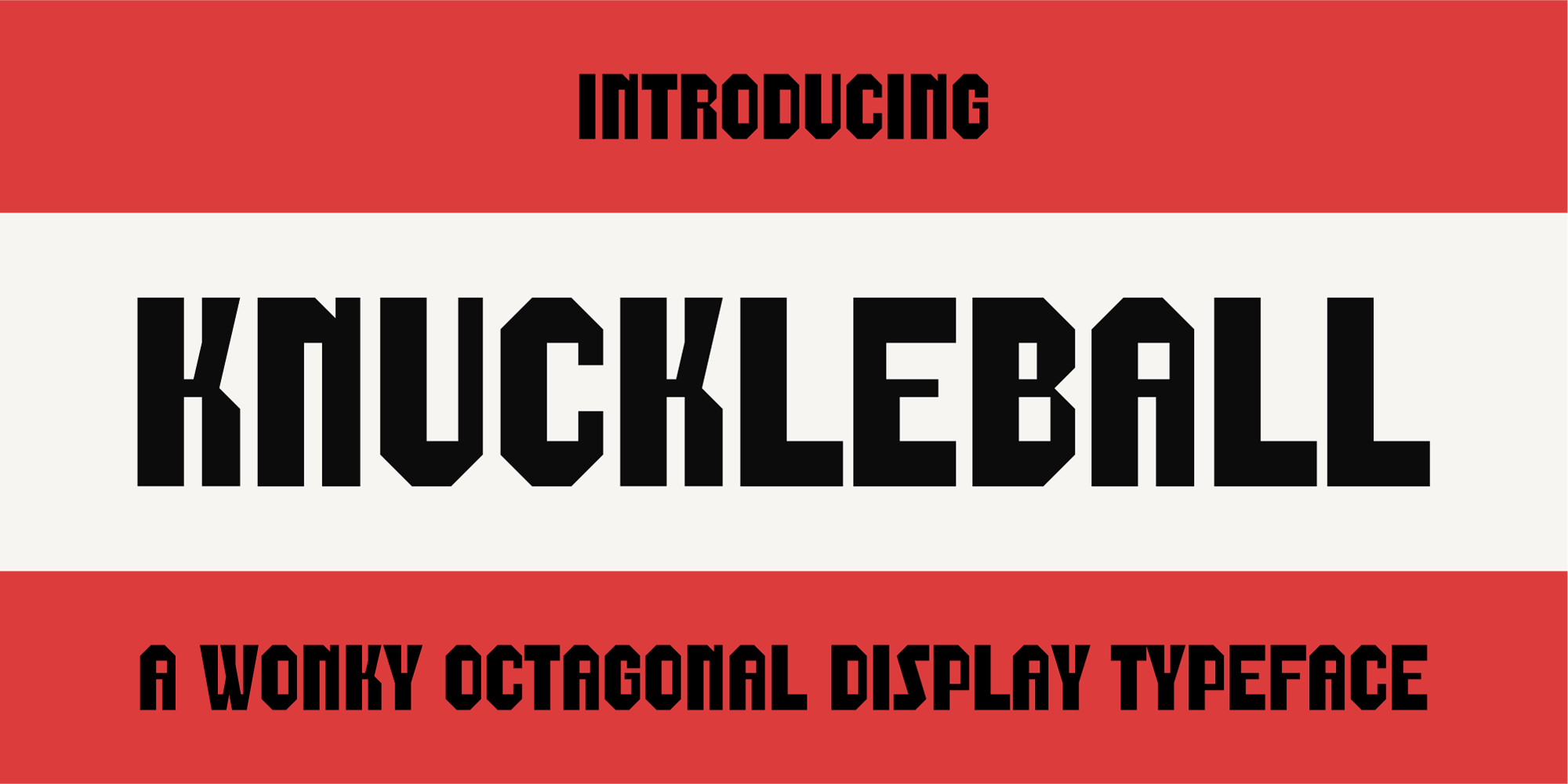
Knuckleball Font is ideal for baseball training academies, vintage sports equipment retailers, classic American ballpark signage, professional baseball team merchandise, sports memorabilia stores, athletic coaching services, and traditional baseball card designs. This dynamic typeface captures the unpredictable excitement and classic American spirit of baseball's most challenging pitch, bringing authentic baseball heritage and sporting intensity to any design project celebrating America's pastime.
What makes Knuckleball Font exciting is its unique combination of unpredictable character and baseball tradition that perfectly embodies the challenging nature and sporting excitement of this legendary pitch technique. The font features irregular letterforms with dynamic variations and athletic proportions that evoke both the erratic movement of a knuckleball and the classic aesthetic of vintage baseball typography. Its spirited character appeals to baseball enthusiasts while maintaining excellent readability for both sports marketing materials and athletic merchandise applications.
The Knuckleball Font family includes regular and bold weights with complementary distressed variations and baseball ornamental elements. The character set features athletic ligatures, baseball symbols, sporting alternates, and American decorative accents that enhance the font's authentic appeal. Extended character support includes baseball statistics symbols and sporting icons for genuine baseball merchandise and athletic training applications.
Whether you're designing baseball team brands, creating sports marketing materials, or developing athletic training content, Knuckleball Font Free Download provides exceptional sporting authenticity and versatility. This dynamic typeface transforms ordinary text into exciting baseball experiences that celebrate American sporting tradition while establishing memorable brand recognition in competitive sports merchandise and athletic training marketplaces.